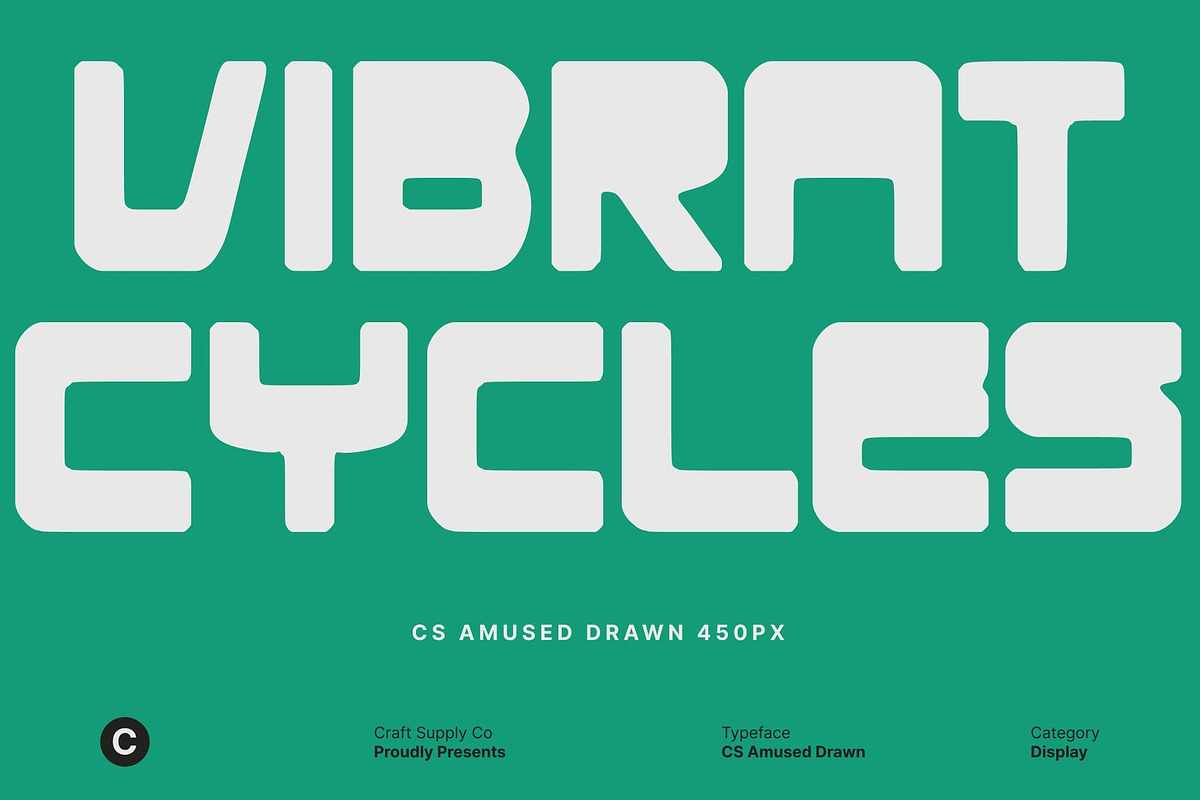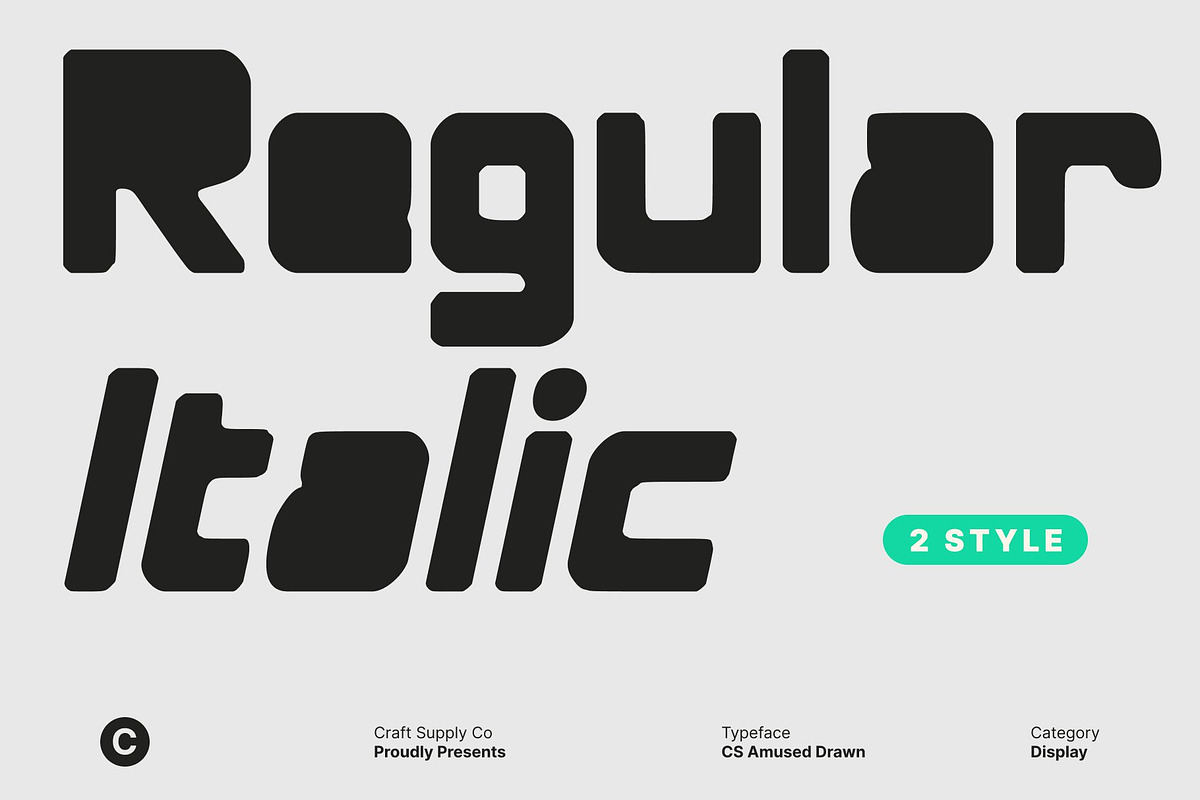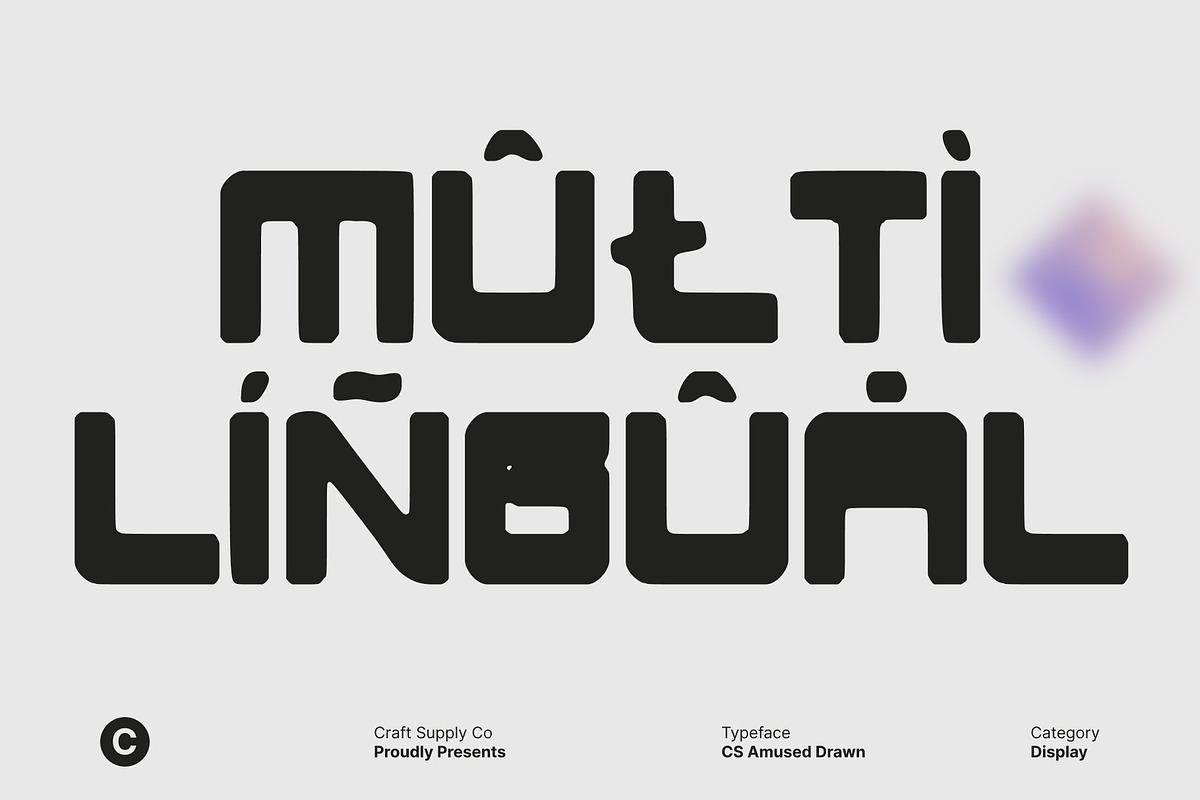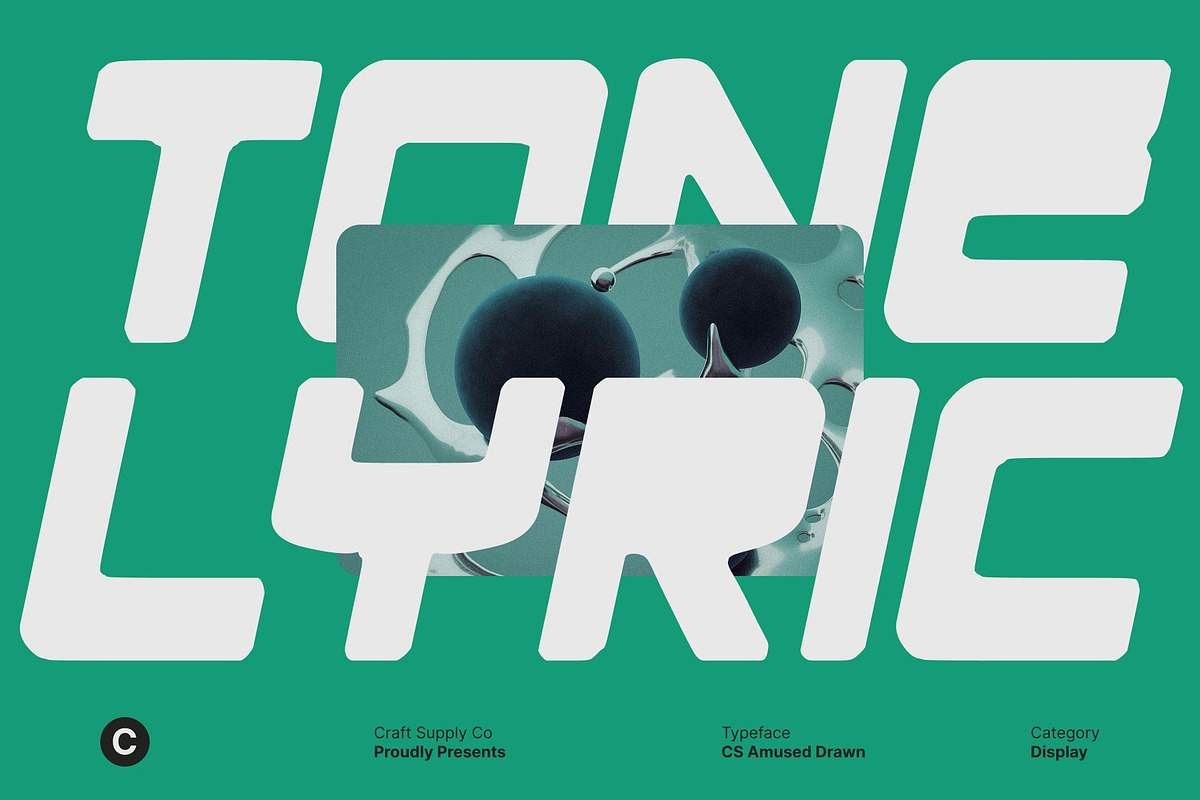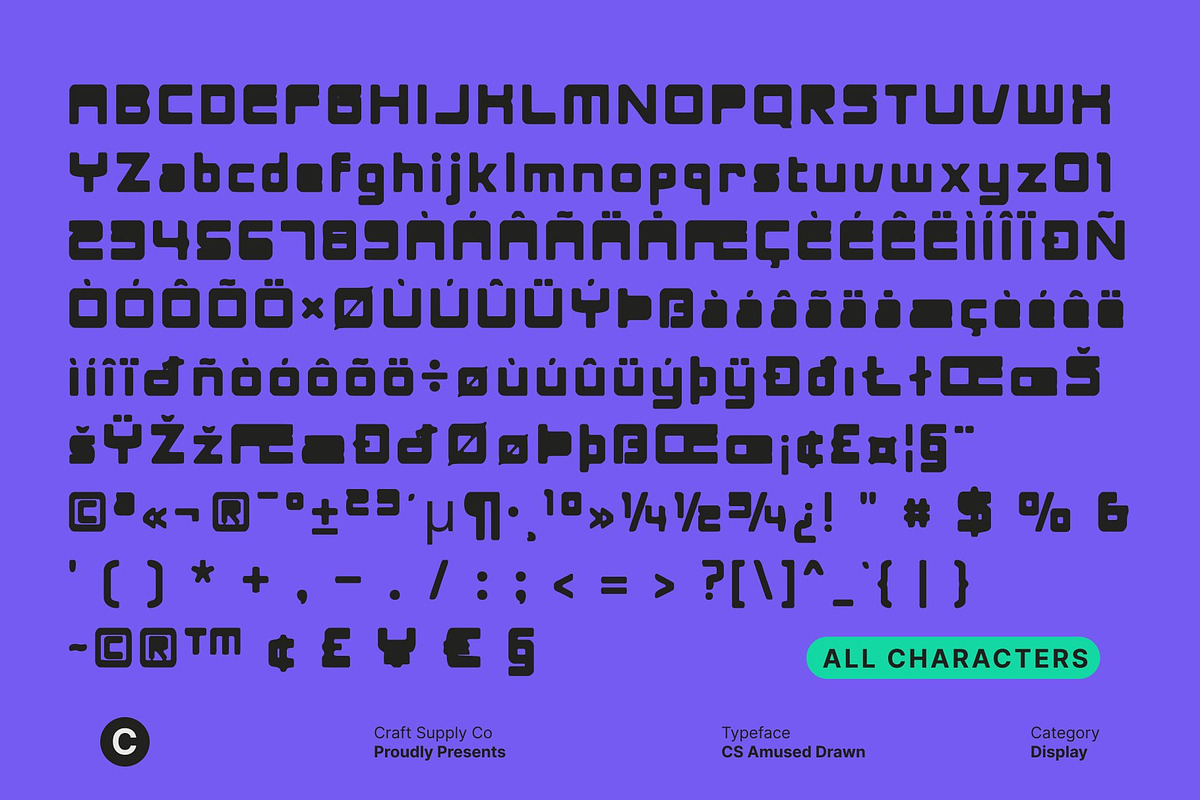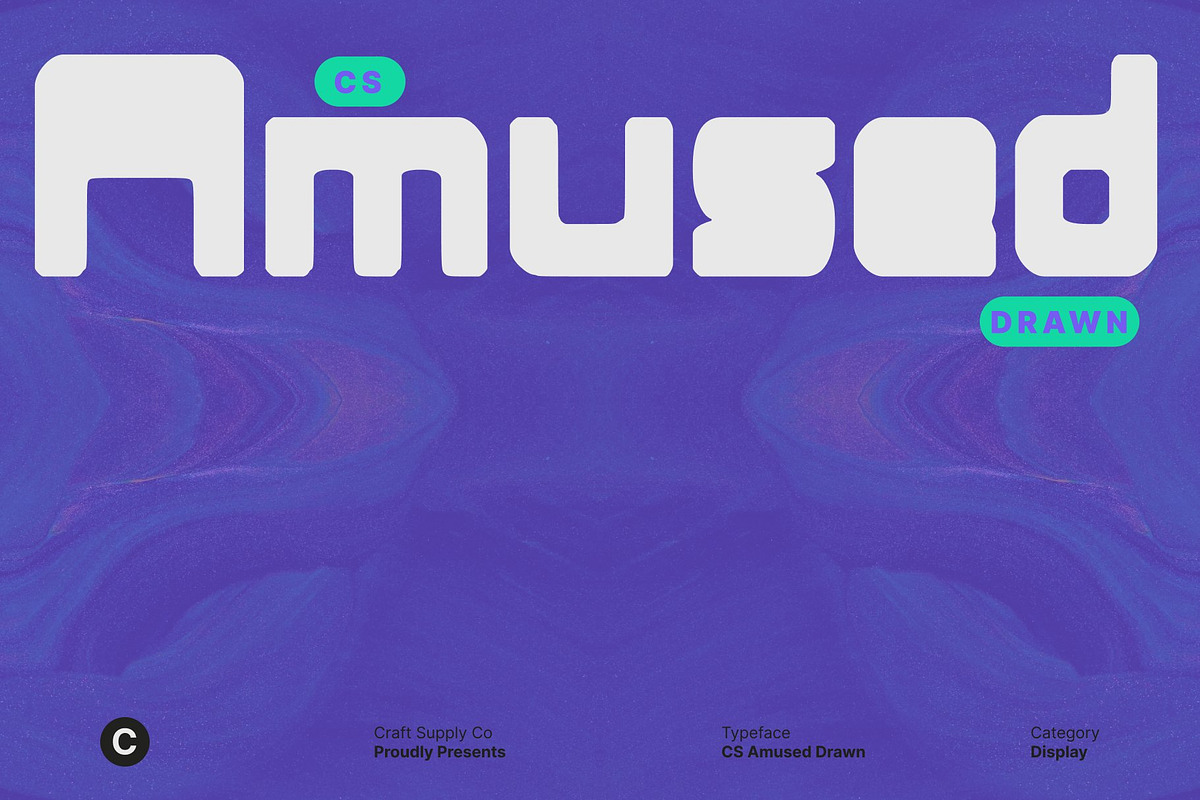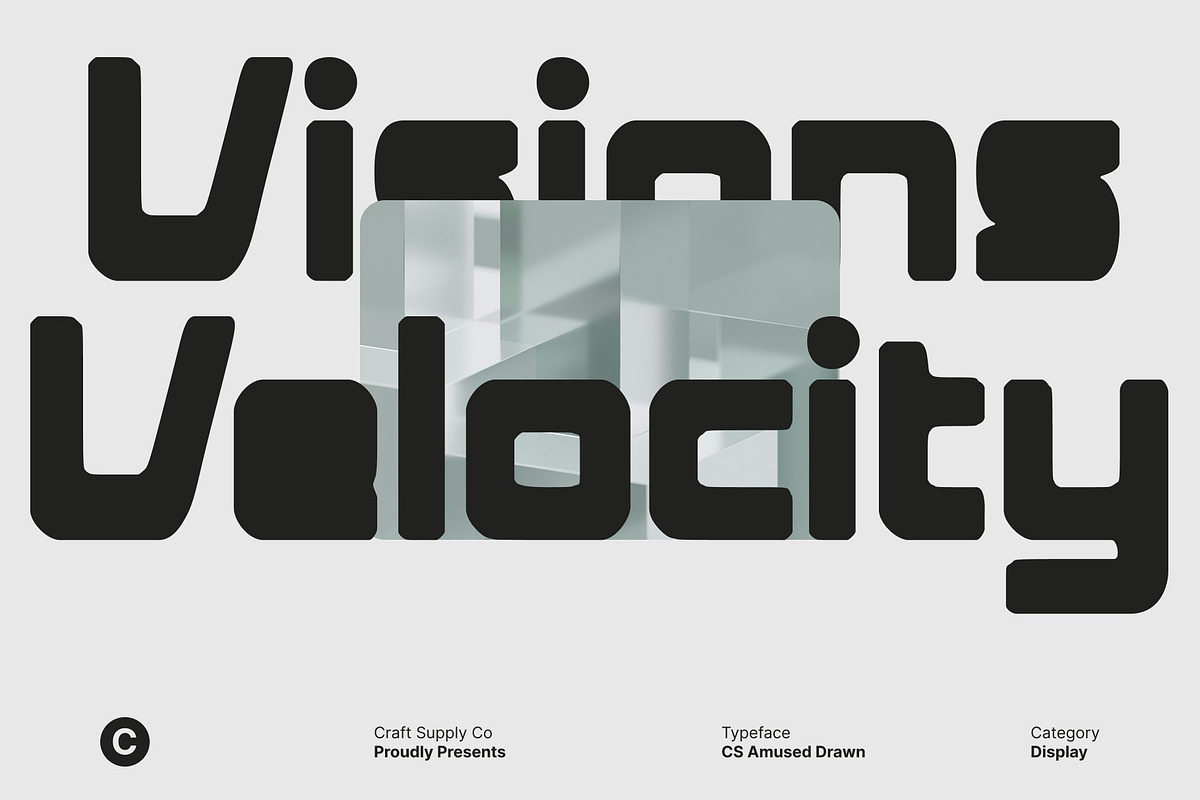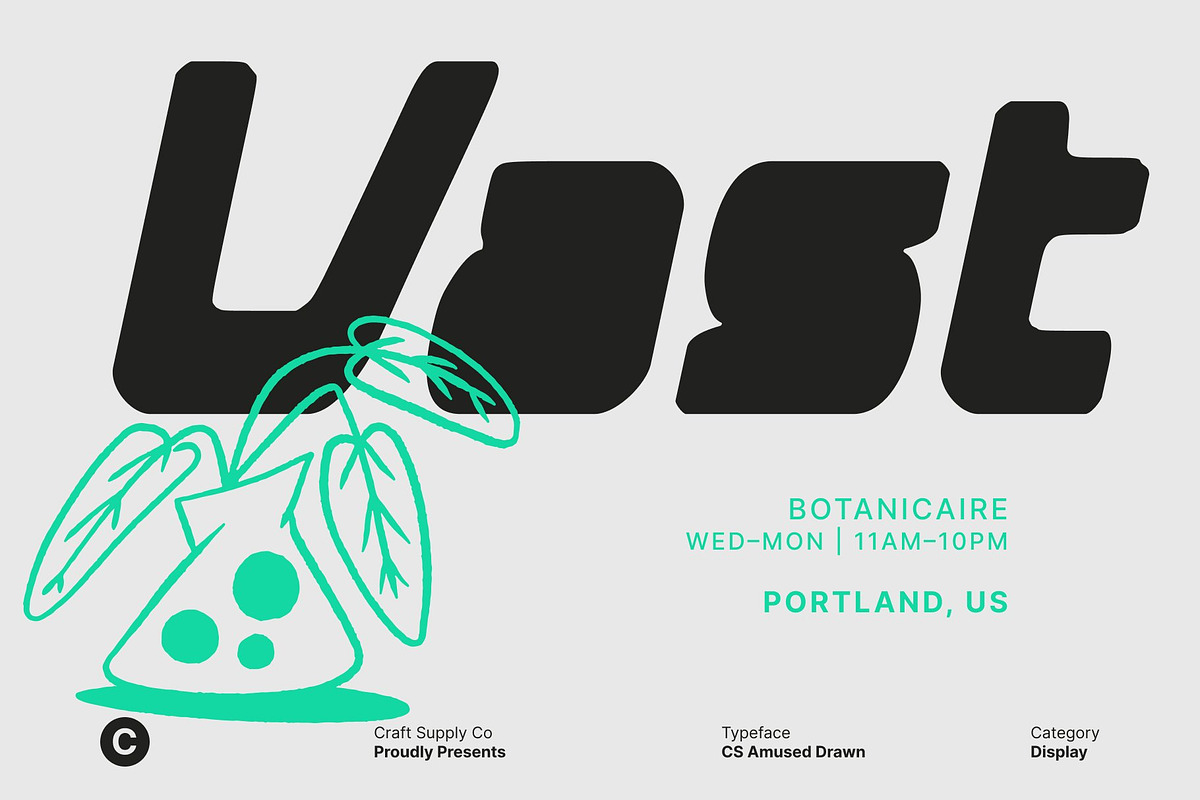
CS Amused Drawn
CS Amused Drawn – Techno Energy with Modern Impact
Techno-Inspired Design with Hand-Drawn Edge This is a techno-inspired sans serif display font that radiates modern energy and confident visual power. Its futuristic structure is enhanced by a drawn effect that introduces subtle imperfections, giving the font a more organic, human touch. This combination creates letterforms that feel fast, digital, and expressive at the same time.
Strong Construction with Artistic Texture The solid structure of this font delivers a strong visual presence across all display applications. Clean strokes and firm shapes ensure excellent readability, while the drawn texture adds depth and character. This artistic detail prevents the font from feeling rigid, allowing it to dominate layouts with confidence and personality.
Futuristic Energy with Creative Character Blending techno aesthetics with a hand-drawn finish, this font captures a sense of movement and innovation. The slightly imperfect contours bring warmth to its futuristic geometry, making it feel alive and dynamic. This balance creates a modern visual tone that works seamlessly across digital and print media.
Ideal for Branding, Logos, and Posters Designed for high-impact use, this font is perfect for branding, logos, posters, and promotional visuals. Its techno style paired with an artistic drawn texture makes it ideal for technology brands, gaming visuals, music events, and contemporary campaigns that demand bold energy with creative individuality.